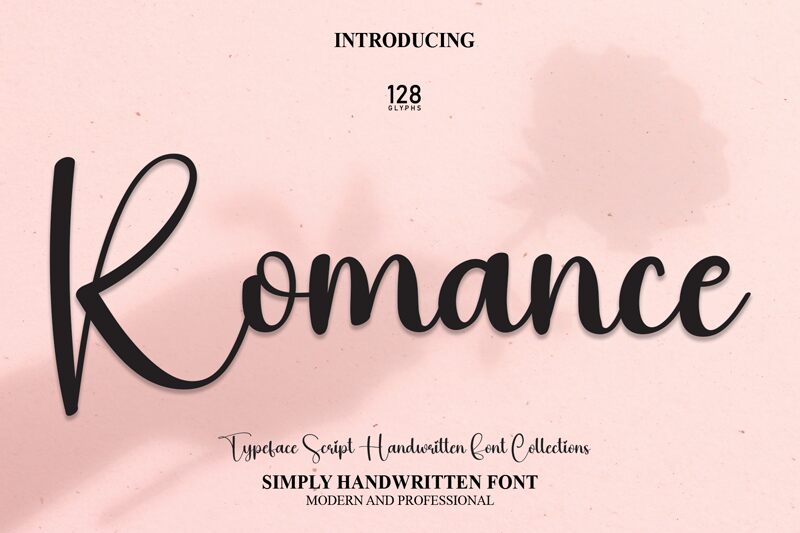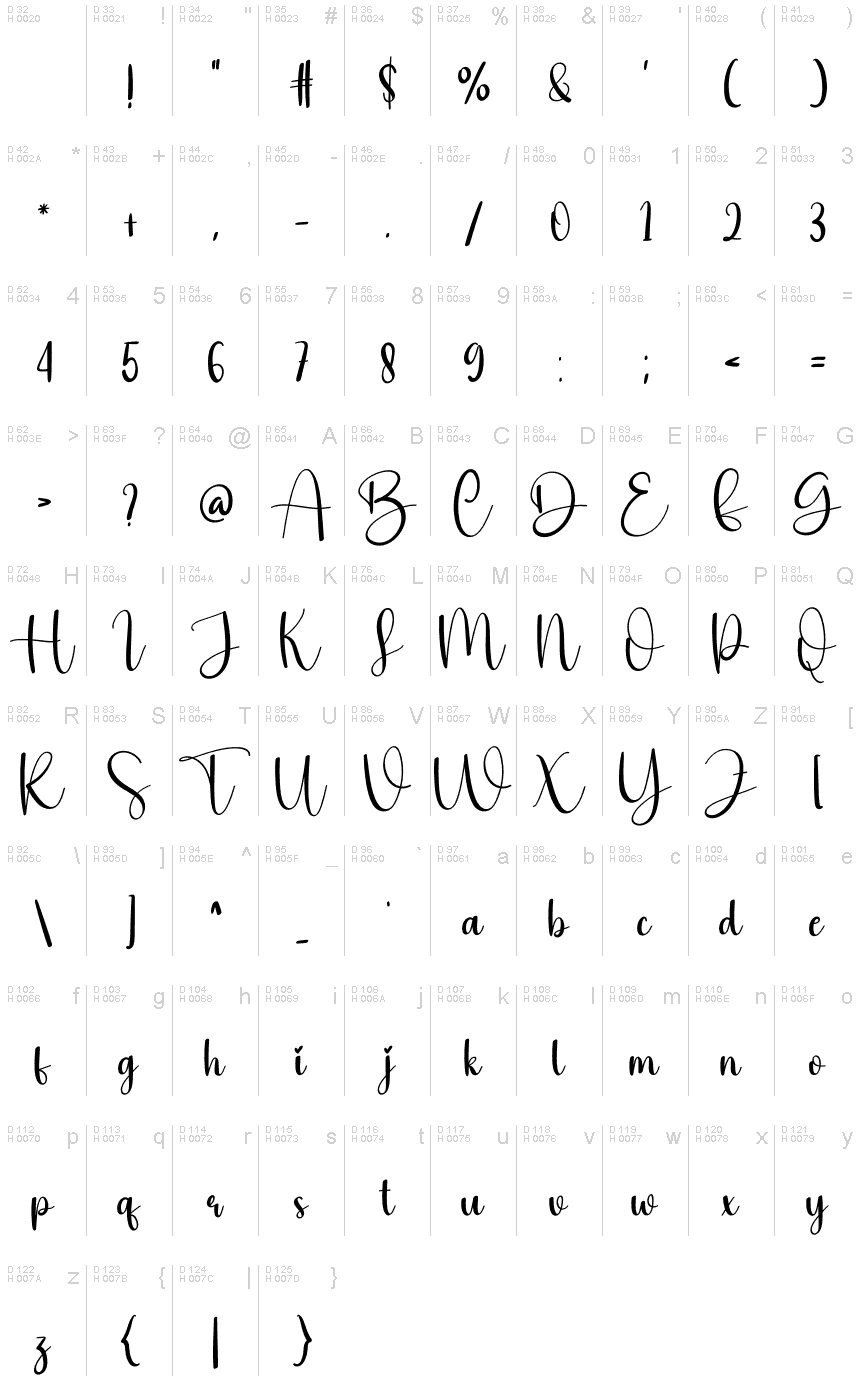
Romance
Romance, a mesmerizing calligraphy font by Scratchones, exudes elegance and grace with its semi-light weight.
Its delicate strokes and graceful curves make it perfect for wedding invitations, love letters, or any project that aims to capture the essence of romance. This font effortlessly adds a touch of sophistication to branding materials, such as luxury fashion labels or high-end beauty products.
With its timeless appeal and versatility, Romance lends itself beautifully to projects seeking a touch of refined charm and allure.